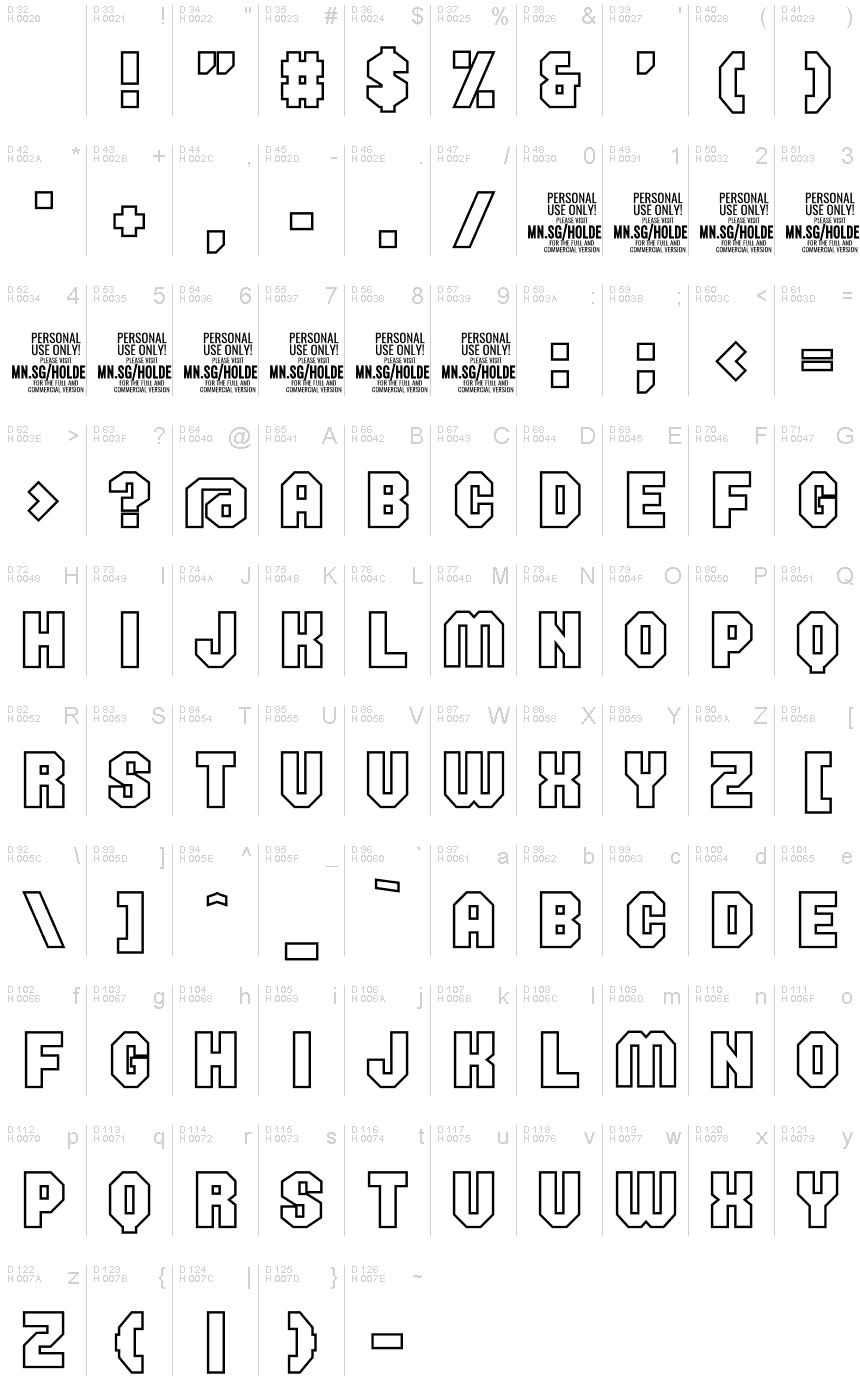
Holder Outline PERSONAL USE ONLY Regular
Holder Outline is an extraordinary display font, designed by the talented Mans Greback. With its old school charm and extra-bold weight, this font captures attention effortlessly. Its outlined style adds a unique touch to any project, making it suitable for a variety of creative endeavors. From vintage-inspired logos and album covers to eye-catching posters and retro-themed websites, Holder Outline brings nostalgia to life. Stand out from the crowd with this font that combines classic elegance with a contemporary twist. Let your imagination run wild and embrace the possibilities of Holder Outline in your next design masterpiece.